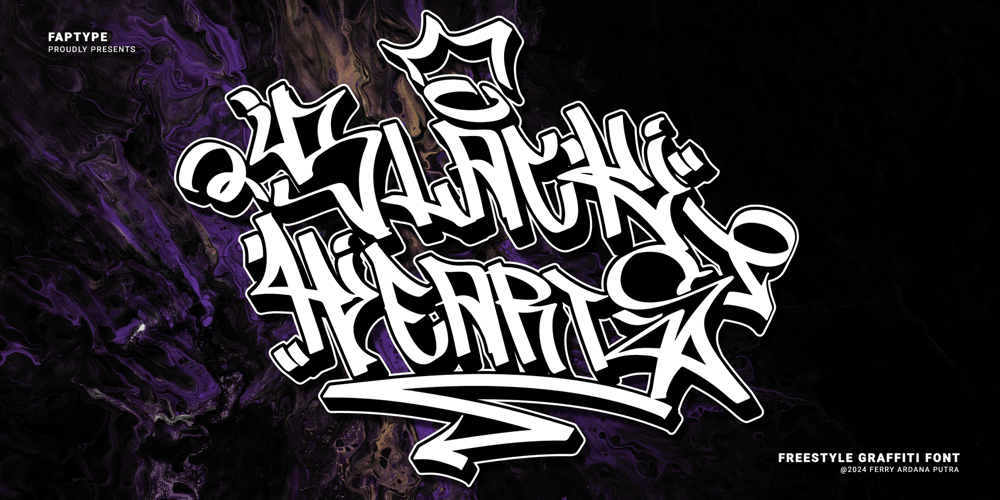
Black Hearts Graffiti
Black Hearts Graffiti font
Black Hearts Graffiti Font Family was designed by Ferry Ardana Putra and published by Ferry Ardana Putra. Black Hearts Graffiti contains 3 styles and family package options. Introducing “Black Hearts,” a cutting-edge freestyle graffiti font that brings an urban edge to your design projects. This font is a testament to the rebellious spirit and creative expression found in street art. With its bold strokes and dynamic letterforms, “Black Hearts” captures the essence of graffiti culture, delivering a raw and authentic feel to your designs.Freestyle Graffiti Design: “Black Hearts” is crafted with a freestyle approach, emulating the spontaneous and expressive nature of graffiti art. The characters showcase a mix of intricate details and bold lines, creating a visually striking and edgy aesthetic.Regular and Extruded Versions: Take your designs to the next level with the 3D flair of “Black Hearts.” The font comes with both regular and extruded versions, providing you the flexibility to experiment with depth and dimensionality in your typographic compositions.Graffiti Swashes: Add an extra layer of creativity to your designs with the included graffiti swashes. These unique elements complement the font’s style, allowing you to embellish your text with expressive strokes and energetic curves.Ornamental Elements: Elevate your design projects with the diverse range of ornamental elements included in “Black Hearts.” From spray-paint-inspired accents to urban motifs, these ornaments provide additional creative options for making your designs truly distinctive.”Black Hearts” is perfect for projects that demand an authentic urban vibe. Whether you’re working on street art posters, album covers, clothing designs, or any project that requires a rebellious and contemporary feel, this font is your go-to choice.Versatile Applications: Streetwear Branding Music Album Artwork Graffiti Art Exhibitions Skateboard Deck Designs Edgy Advertising Campaigns Contemporary Logo Design “Black Hearts” is more than just a font; it’s a statement. Embrace the rebellious energy of the streets and infuse your designs with the raw, unapologetic style of urban graffiti culture. Unleash your creativity and make a bold impact with “Black Hearts.”———Black Hearts features: A full set of uppercase and lowercase Numbers and punctuation Multilingual language support PUA Encoded Characters OpenType Features Layered Style +425 Total Glyphs +200 Graffiti Swashes and Ornaments included!